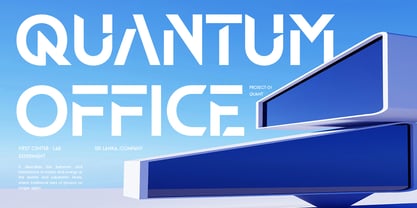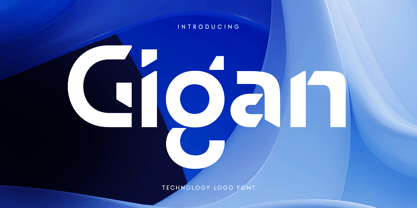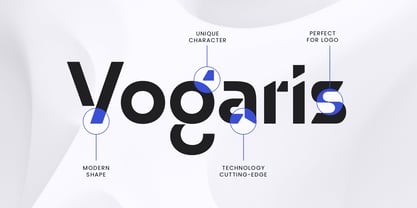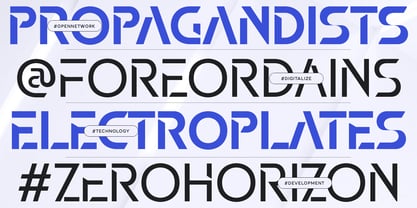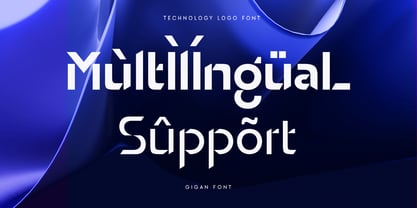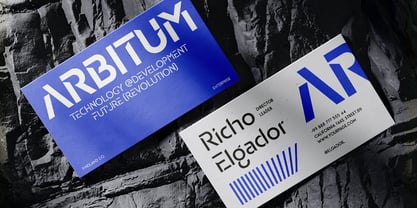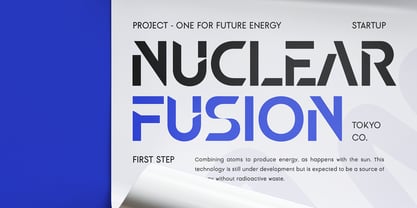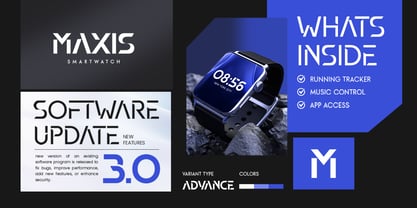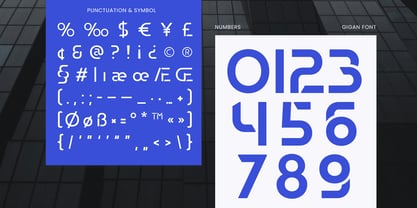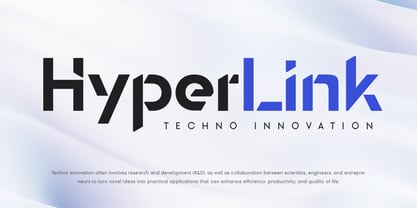
Regan - Technology Logo Font
A Bold Step into the Future
Regan is a technology-inspired font designed to embody innovation and progress. With its sleek, geometric shapes and minimalist design, Regan brings a futuristic edge to any project, making it the perfect choice for tech-focused branding.
Perfect for Tech Logos
Whether you’re designing logos, app interfaces, or branding materials, Regan ensures your projects stand out with modern sophistication. Its clean lines and bold character make it ideal for businesses in the digital, software, and technology industries.
Innovation Meets Design
Regan combines functionality with a futuristic aesthetic, making it a versatile tool for creative professionals. From web design to product packaging, this font adds a touch of modernity and professionalism to every creation.
Regan Technology Logo Font Features:
Alternates Characters Ready
Punctuation, Number, and Symbol
Uppercase and Lowercase
Opentype Features
Multilingual Characters available for:
Afrikaans, Albanian, Asu, Basque, Bemba, Bena, Breton, Chiga, Cornish, Dutch, English, Estonian, Filipino, Finnish, Friulian, Galician, German, Gusii, Indonesian, Irish, Italian, Kabuverdianu, Kalenjin, Kinyarwanda, Luo, Luxembourgish, Luyia, Machame, Makhuwa-Meetto, Makonde, Malagasy, Manx, Morisyen, North Ndebele, Nyankole, Oromo, Portuguese, Quechua, Romansh, Rombo, Rundi, Rwa, Samburu, Sango, Sangu, Scottish Gaelic, Sena, Shambala, Shona, Soga, Somali, Spanish, Swahili, Swedish, Swiss.